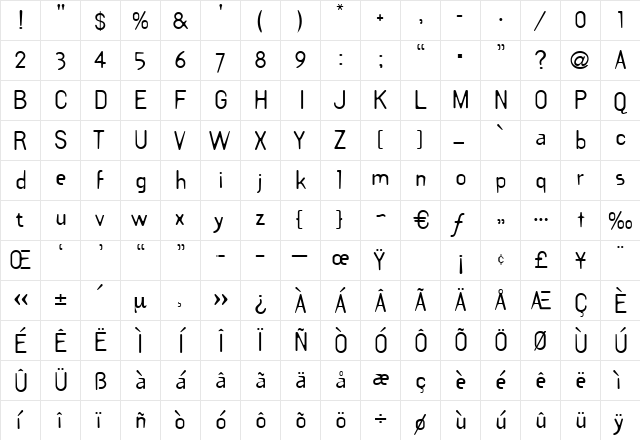
Dewsbury Regular Font Preview
Dewsbury Regular
Design Context for Dewsbury Typeface
Dewsbury takes a measured approach to typography — its balanced proportions and neutral character make it a reliable workhorse for both digital and print work.